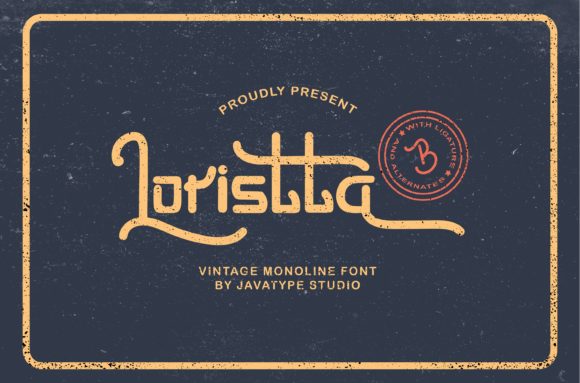
About Loristta Font
Loristta is a beautiful and exquisite handwritten font. It has delicate and classic characters, and it will turn any creative idea into a standout!